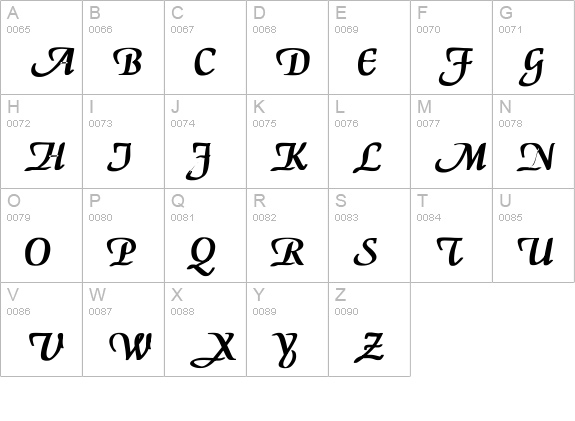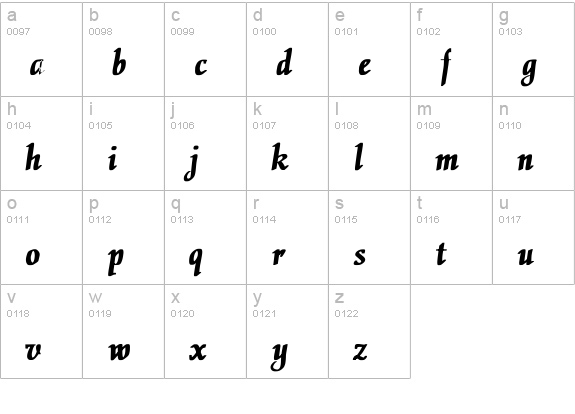
ElGar Bold Font Details
ElGar Bold is a strong, high-contrast variant in the ElGar typeface family \xE2\x80\x94 well suited to headlines, attention-grabbing titles, and strong calls-to-action.
Introducing ElGar Bold font, a striking and modern typeface designed to make a bold statement in your design projects. With its sleek lines and strong presence, ElGar Bold is perfect for headlines, logos, and branding materials that demand attention. This versatile font exudes confidence and authority, making it ideal for a wide range of applications. Whether you're designing a sleek corporate presentation or a cutting-edge website, ElGar Bold will ensure your message is delivered with impact. Best of all, ElGar Bold is available for free download at FontsMarket.com. So go ahead and elevate your designs with this powerful and eye-catching font today!